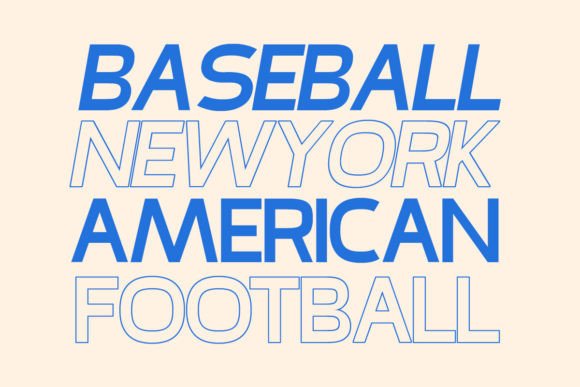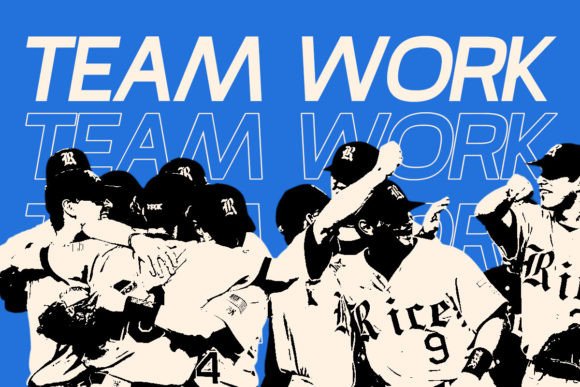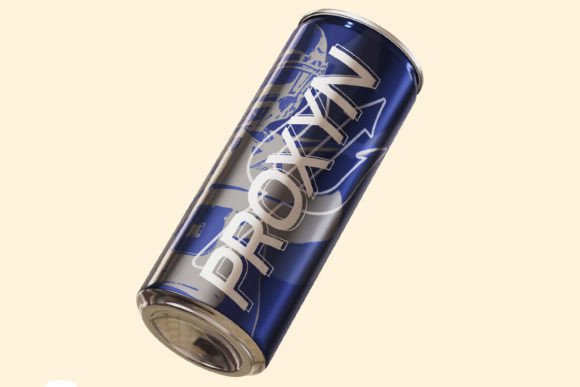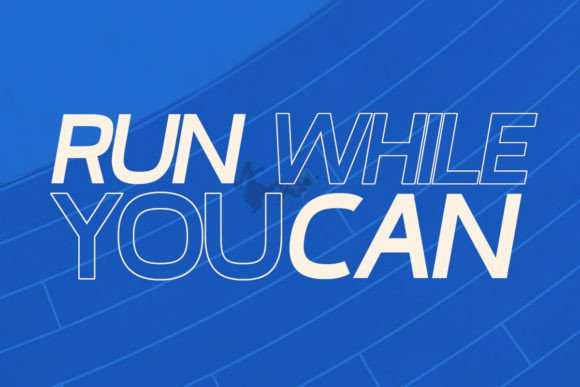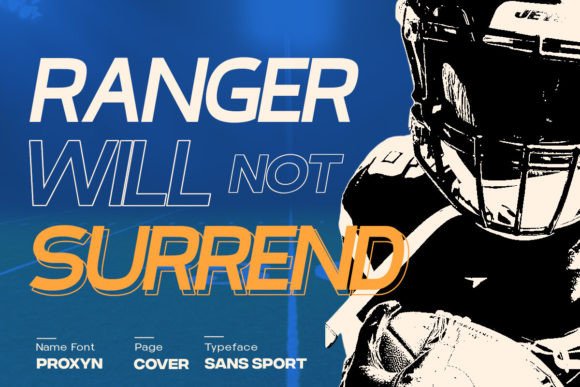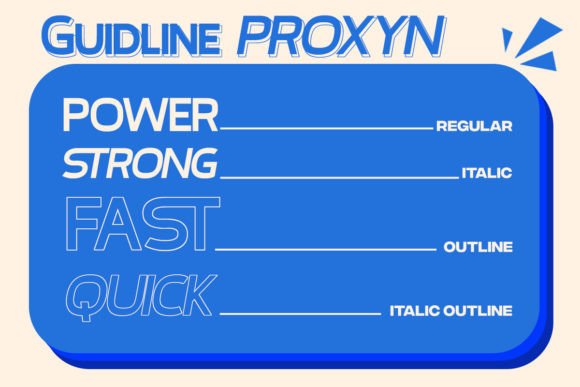
Introduction to Proxyn Font
Have you ever stared at a blank design canvas, trying to conjure up the perfect font to elevate your creative project? The search can be overwhelming, especially when you’re looking for a font that exudes elegance and sophistication. But what if I told you that your search is over? Enter Proxyn Font, a stunning speed display font designed to take your designs to the next level.
With its smooth curves and beautiful ligatures, Proxyn Font is the perfect design resource for any creative project. Whether you’re working on a logo, branding, magazine, or product packaging, this versatile display font is sure to make a statement. And the best part? Proxyn Font is available for free download, making it an invaluable addition to any designer’s toolkit.
As a designer, you know how crucial it is to have high-quality design assets at your fingertips. That’s why Proxyn Font is a game-changer – it’s the perfect combination of style and substance that’s sure to take your designs to new heights.
Key Features of Proxyn Font
- Features a transparent background, allowing for seamless integration into any design or creative project.
- Includes multiple font styles and weights, providing versatility for designers and artists.
- Designed with high-resolution clarity, suitable for use in both print and digital applications at resolutions up to 300 DPI.
Honest Review: Proxyn Font
I recently had the opportunity to work with the Proxyn Font, and I must say it’s a solid addition to any design project. This free download has been a lifesaver for me when it comes to creating a professional-looking logo or graphic for my clients.
What works well: ✨ The Proxyn Font is highly legible, making it perfect for body text or headings. It’s also incredibly versatile, with a range of weights and styles that can be used to create a cohesive visual identity. Plus, it’s completely free to download, which is always a bonus!
- Wide range of weights and styles
- Perfect for body text or headings
What doesn’t work so well: ⚠️ Unfortunately, the Proxyn Font doesn’t come with a transparent background option, which can be a limitation when working with complex compositions. Additionally, some of the weights and styles can be a bit difficult to read at small font sizes.
Overall, I’m really impressed with the Proxyn Font. It’s a great design resource that’s perfect for any creative project. With its high-quality design and versatility, it’s definitely worth adding to your font library.
Tips for Getting the Most Out of Proxyn Font
Experiment with different font sizes, colors, and combinations to achieve the desired effect. Use Proxyn Font in conjunction with other design elements to create a visually appealing design. Take advantage of the font’s transparent background to add depth to your design.
Proxyn Font is suitable for a wide range of creative projects, including graphic design, digital art, and print materials. Use it for headings, titles, or body text to add a unique touch to your design. The font’s high quality and versatility make it an excellent design resource for designers of all levels.